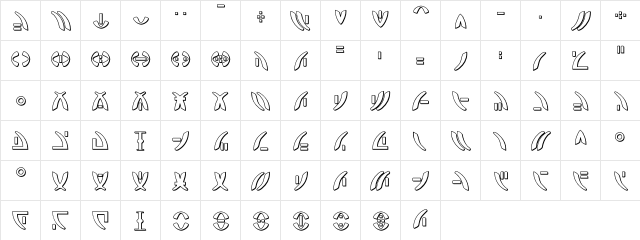
Zeta Reticuli 3D Regular Font Preview
Zeta Reticuli 3D Regular
Design Context for Zeta Reticuli 3D Typeface
Zeta Reticuli 3D is a composed and adaptable typeface that performs quietly and consistently across a wide range of design contexts.